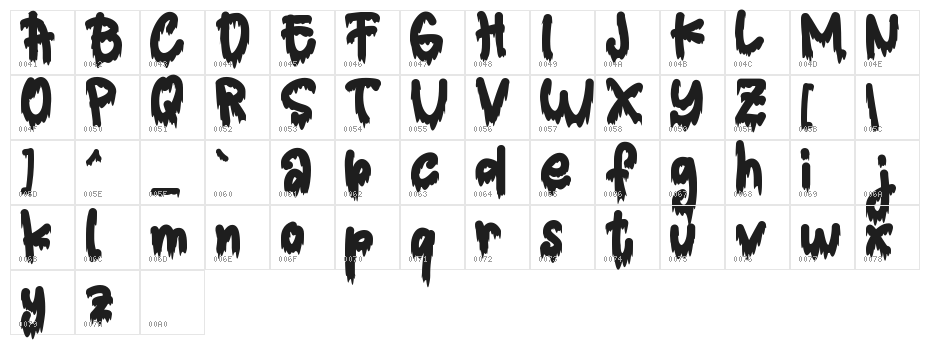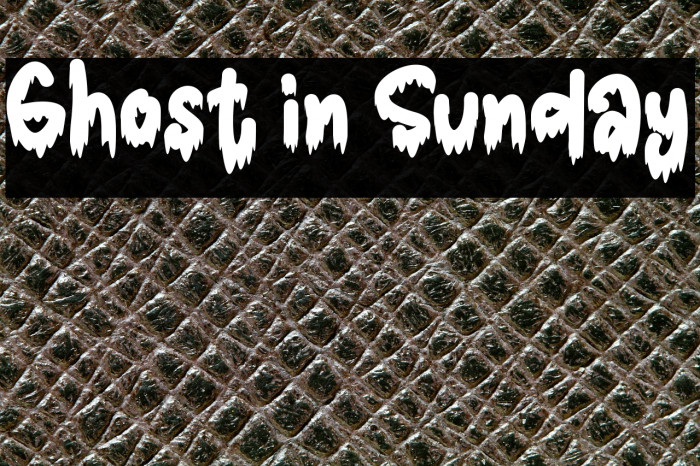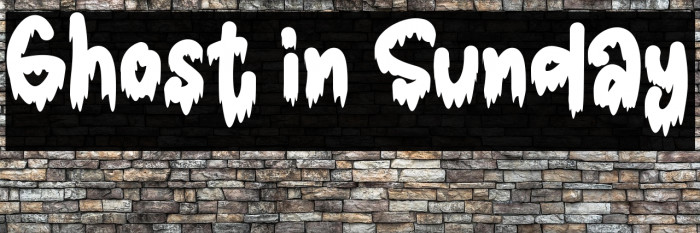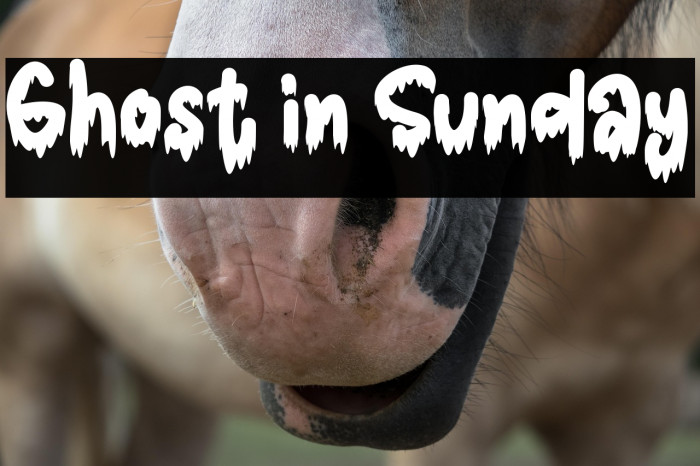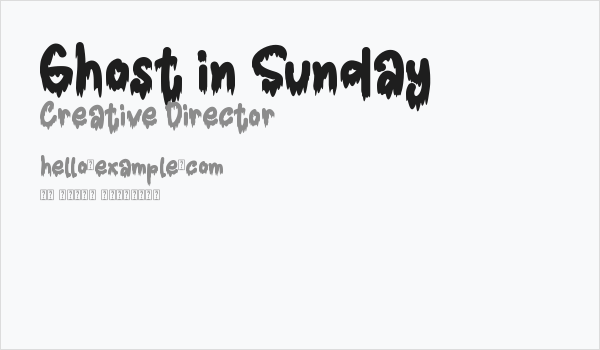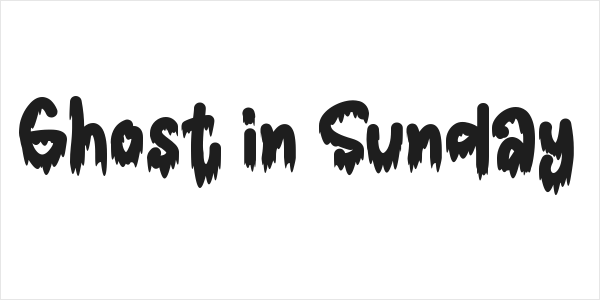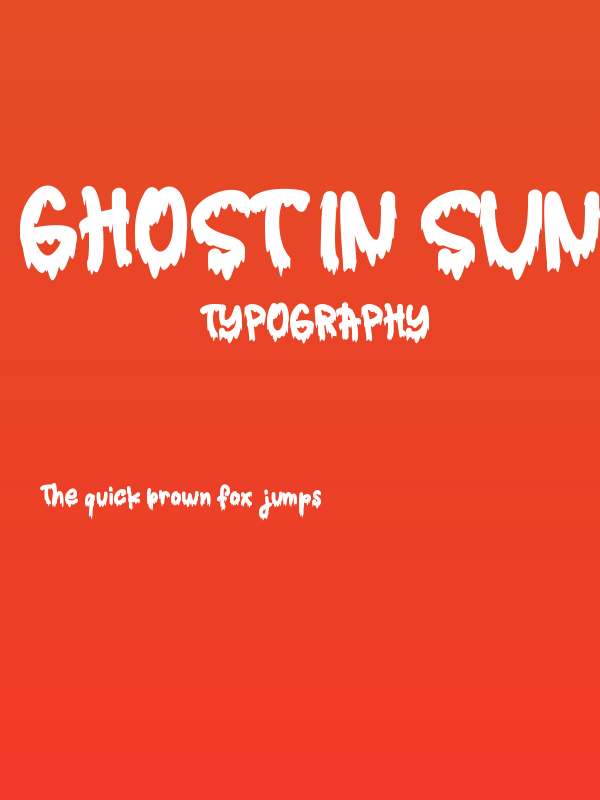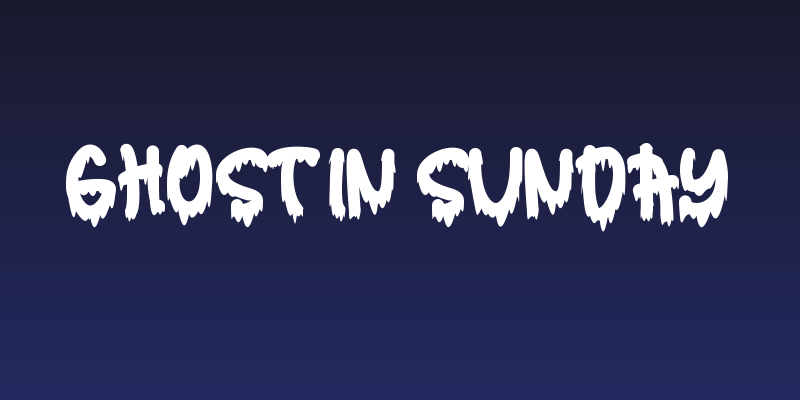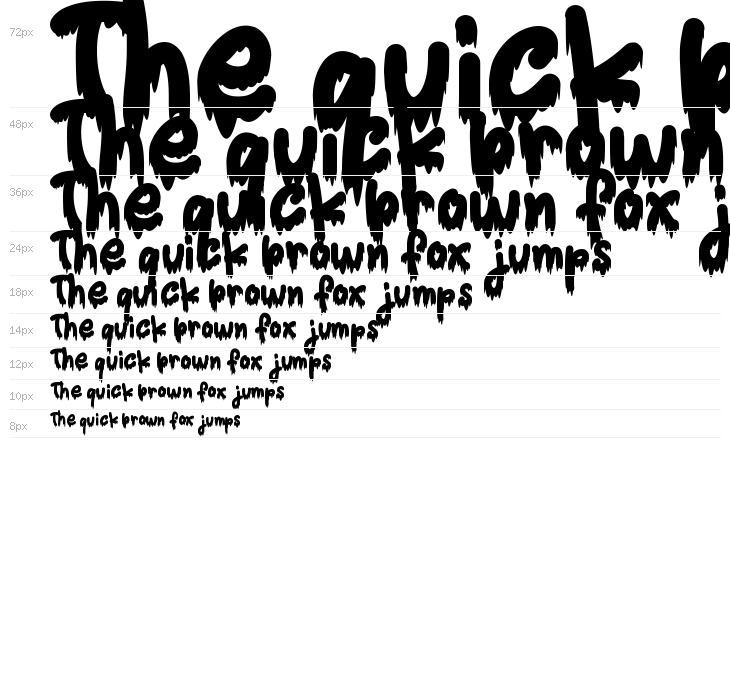
Ghost in Sunday Font
Ghost in Sunday Description
This font features a spooky, dripping style reminiscent of melting wax or goo, perfect for Halloween-themed projects. The characters have a playful yet eerie appearance, with irregular edges and a bold presence that captures attention. The uppercase and lowercase letters maintain a consistent style, with exaggerated curves and a slightly uneven baseline that adds to the unsettling effect. The numbers and special characters follow the same design, ensuring a cohesive look across all text elements. This font is ideal for creating eye-catching headlines, posters, and invitations that require a touch of the macabre.